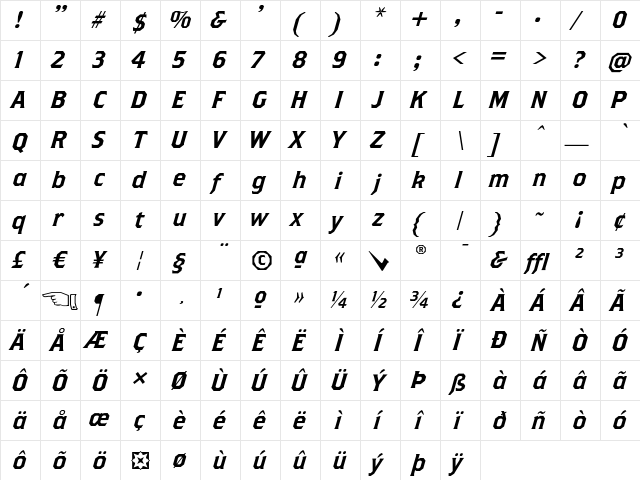
BrothersSuperSlant Roman
Design Context for BrothersSuperSlant Typeface
BrothersSuperSlant takes a measured approach to typography — its balanced proportions and neutral character make it a reliable workhorse for both digital and print work.